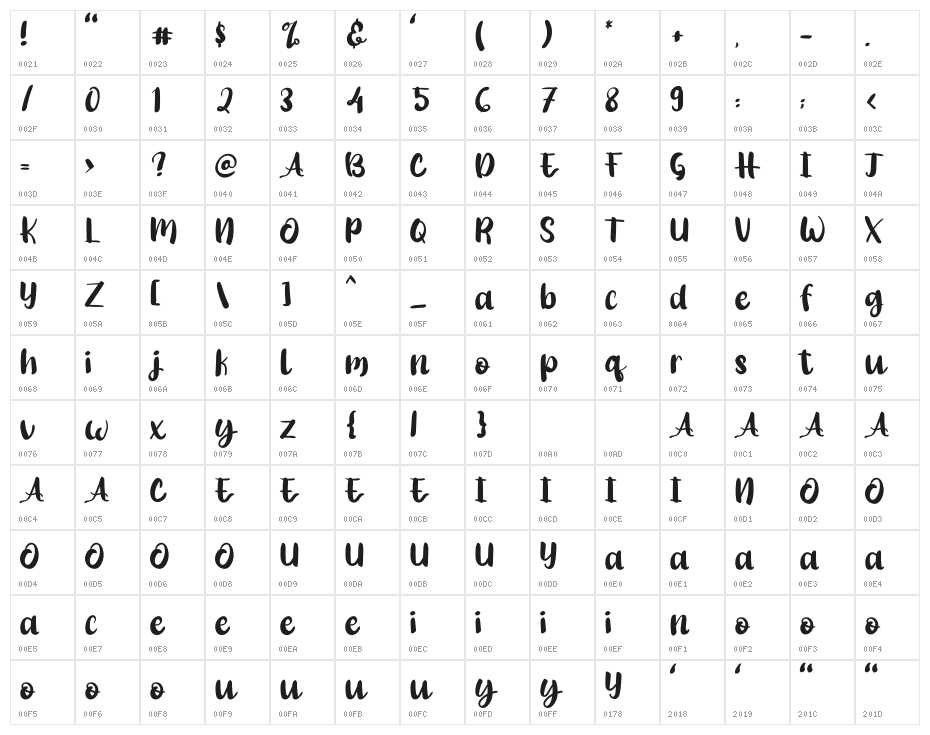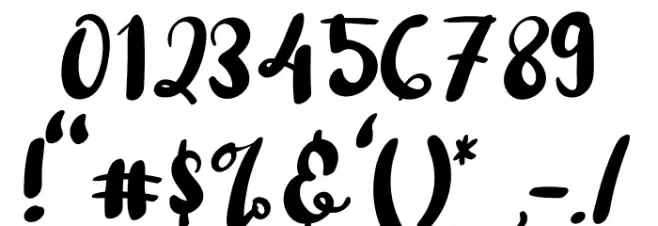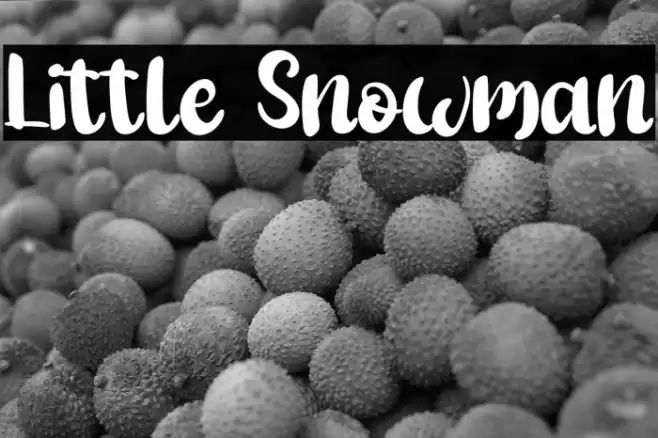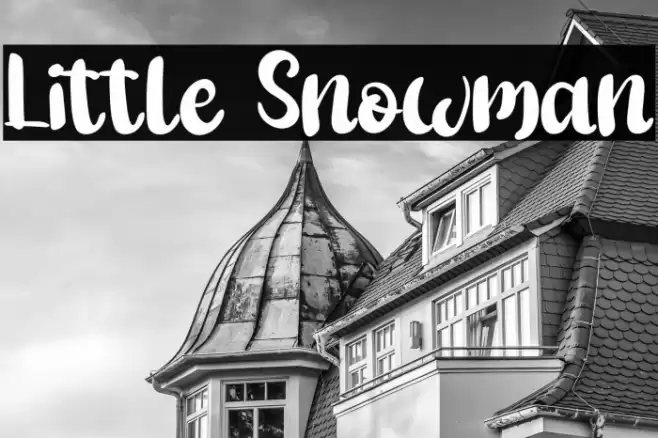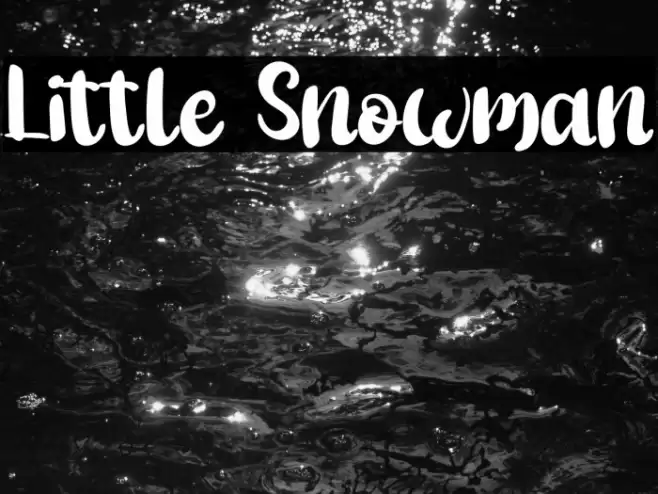
Little Snowman Font
Little Snowman Description
This playful and whimsical font features bold, rounded characters with a hand-drawn aesthetic. The uppercase letters are slightly taller and more pronounced, while the lowercase letters maintain a consistent flow with a slight slant, adding to the casual and friendly vibe. The numbers are equally bold and rounded, ensuring readability. Special characters are creatively designed, maintaining the overall playful theme. This font's unique style makes it ideal for projects that require a touch of fun and creativity.
| Proposed Projects | Perfect for children's books, playful branding, greeting cards, and creative posters. |